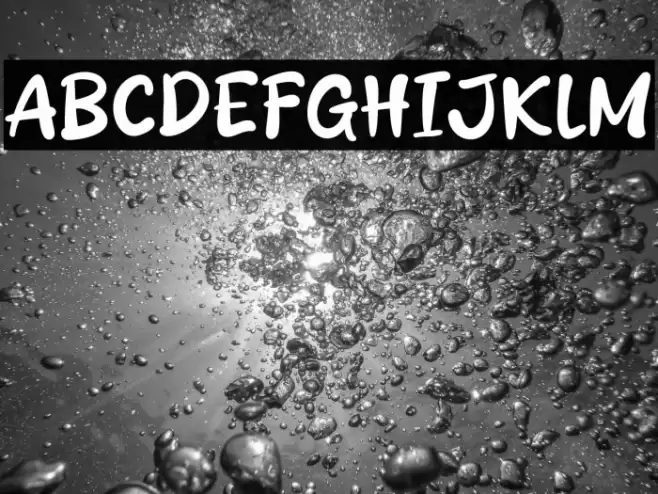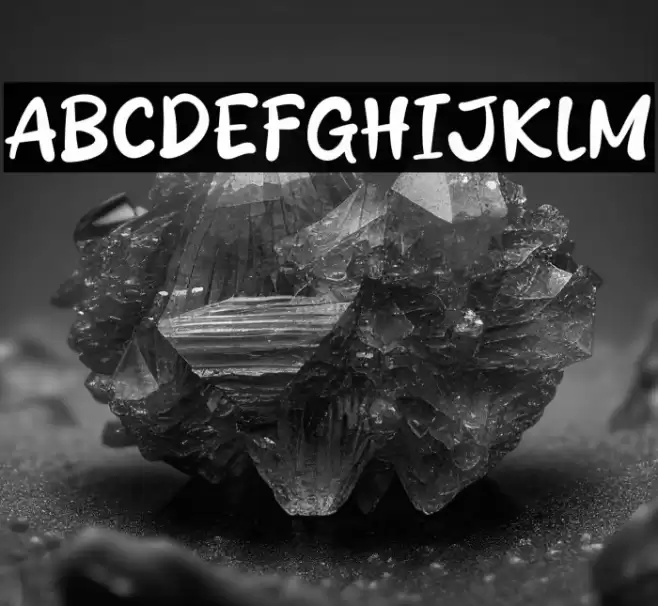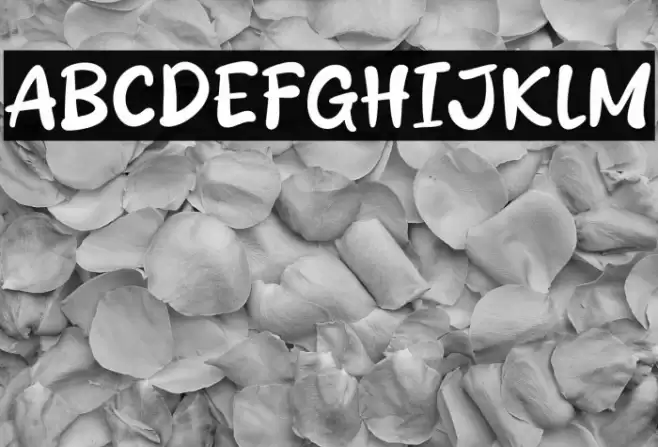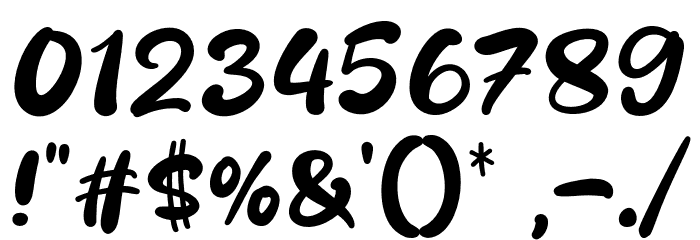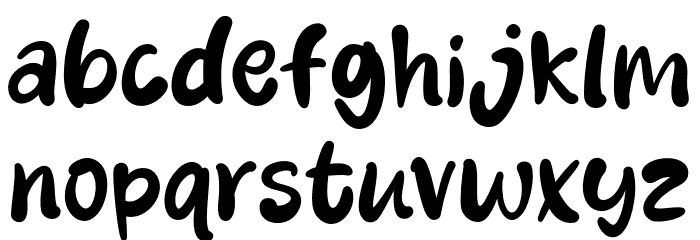
Apayah Loe Font
Apayah Loe Description
This font features a playful and bold handwritten style, characterized by its thick, rounded strokes and slightly irregular shapes. The uppercase letters are robust and dynamic, while the lowercase letters maintain a consistent flow, adding to the font's casual and friendly appearance. The numerals and special characters follow the same design ethos, ensuring a cohesive look across all glyphs. The overall impression is one of approachability and creativity, making it suitable for projects that require a personal touch.
A bold, playful handwritten font with rounded strokes and a casual style from Uncategorized fonts.
- Font: Apayah Loe
- Proposed Projects: Ideal for greeting cards, children's books, playful branding, and social media graphics.
- Overall Style: Playful, Casual
- Use Case: Headlines, Logos, Informal Text
Apayah Loe UPPERCASE
Apayah Loe LOWERCASE
Apayah Loe OTHER CHARS